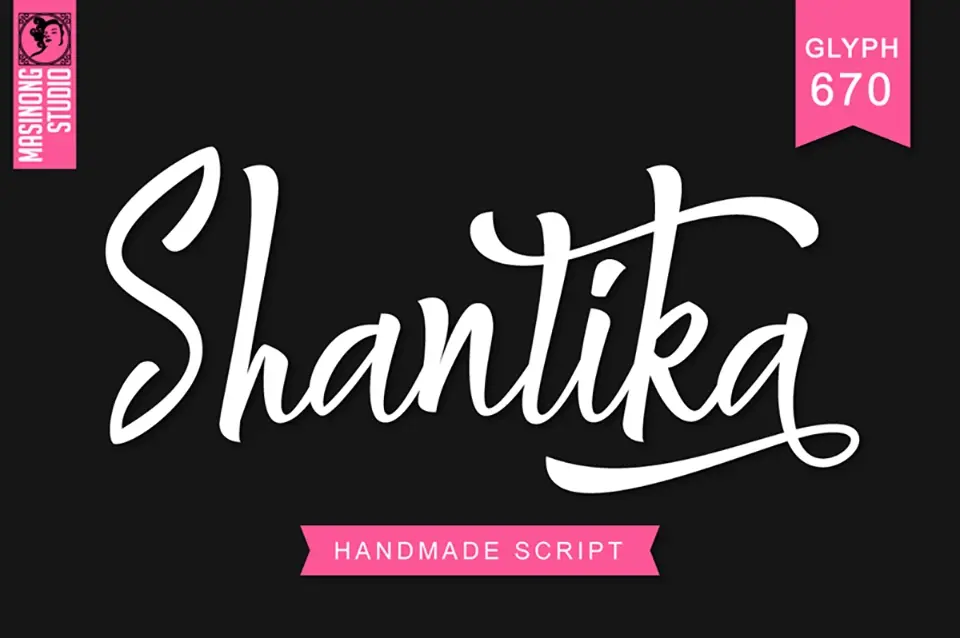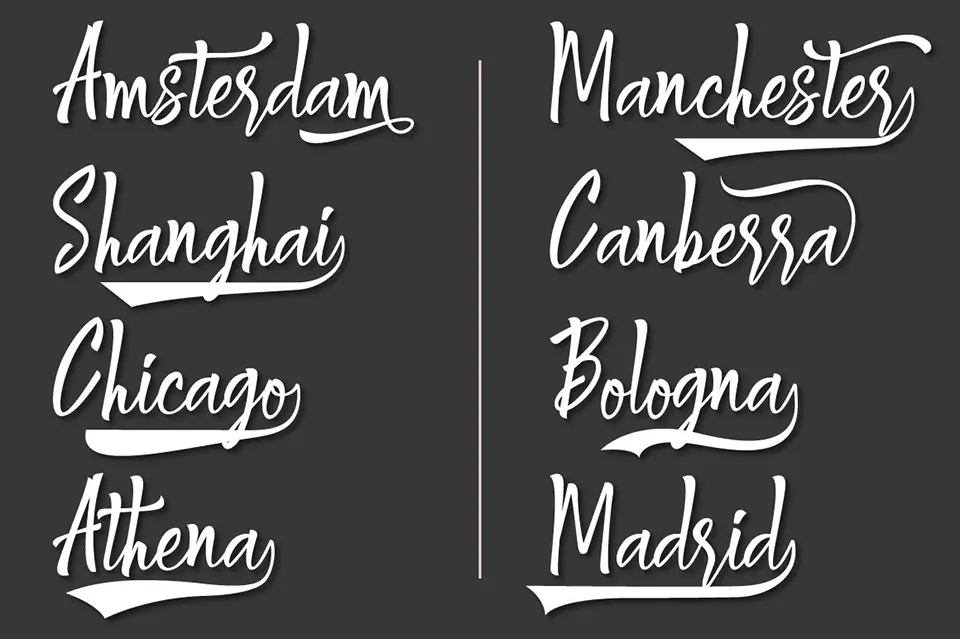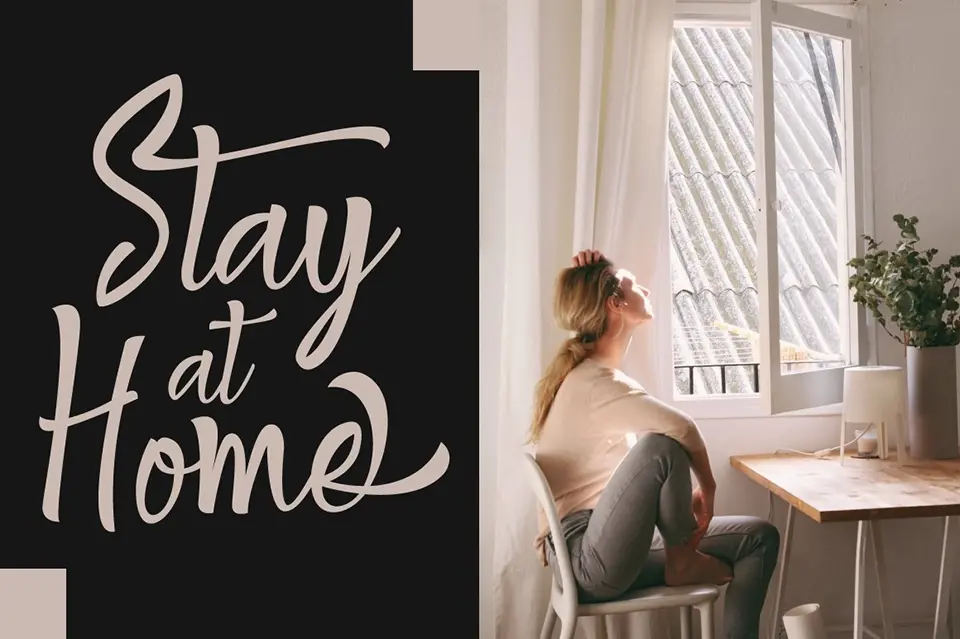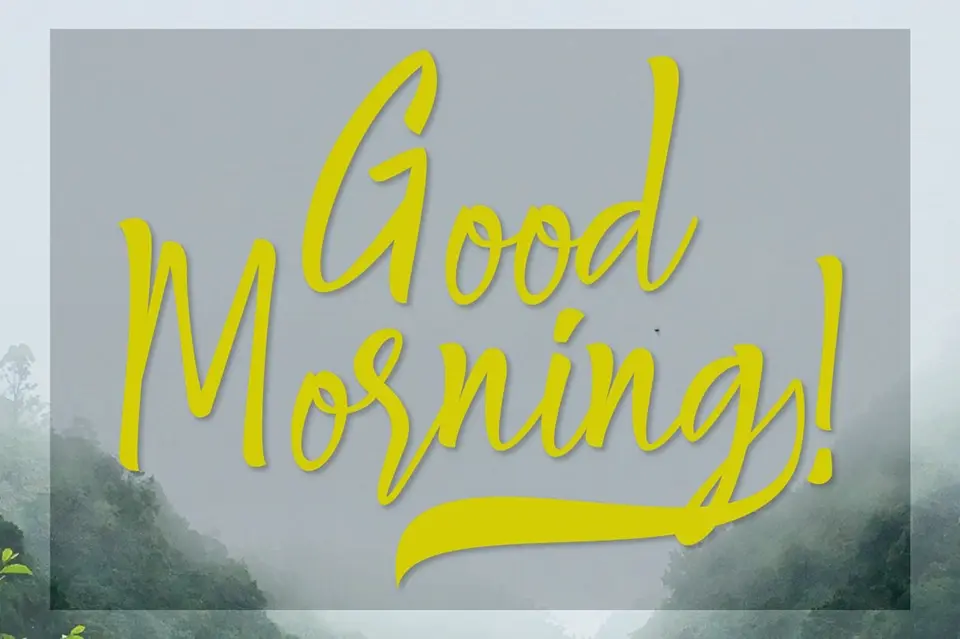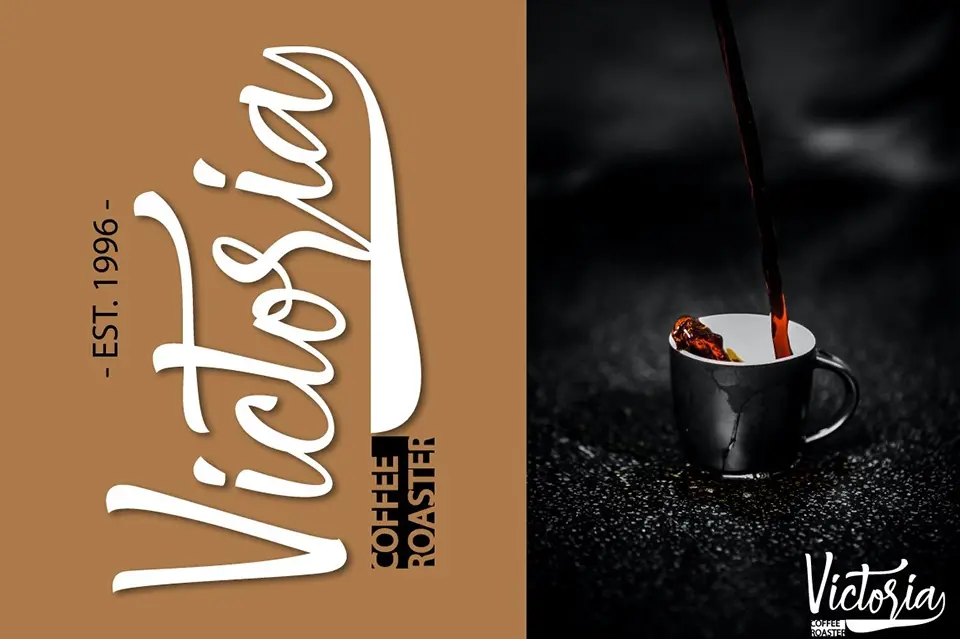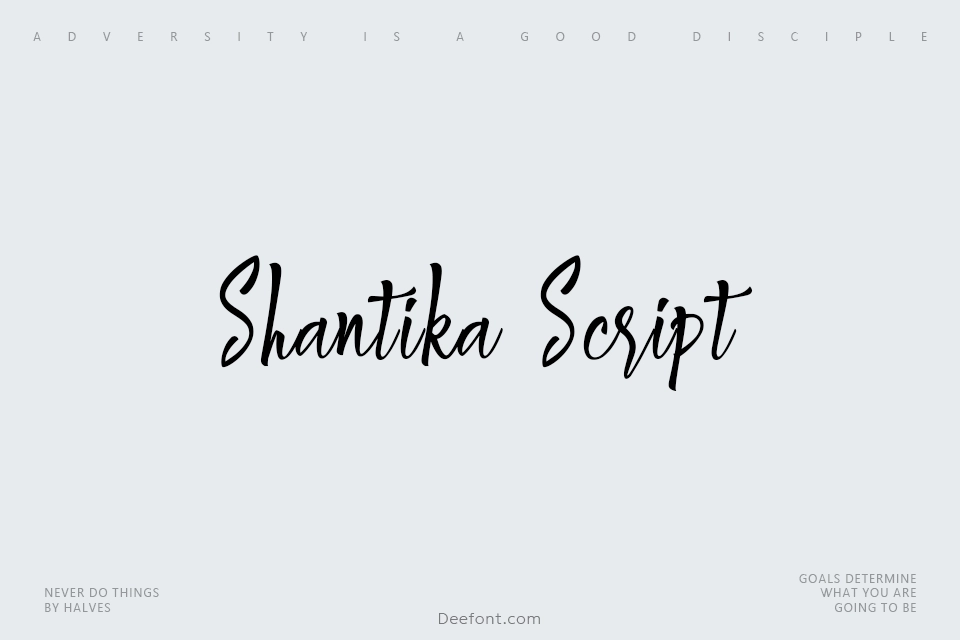
Shantika Script Font
Shantika Script is an elegant script typeface designed with flowing, cursive letterforms that bring sophistication to any creative project. This handwritten-style font combines contemporary calligraphy with modern aesthetics, making it ideal for wedding invitations, greeting cards, branding materials, and decorative typography. With its smooth curves and graceful strokes, Shantika Script adds a touch of elegance and personality to designs, offering designers a versatile tool for creating visually stunning and memorable compositions.